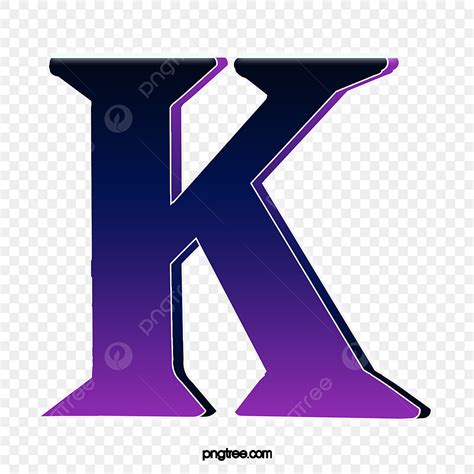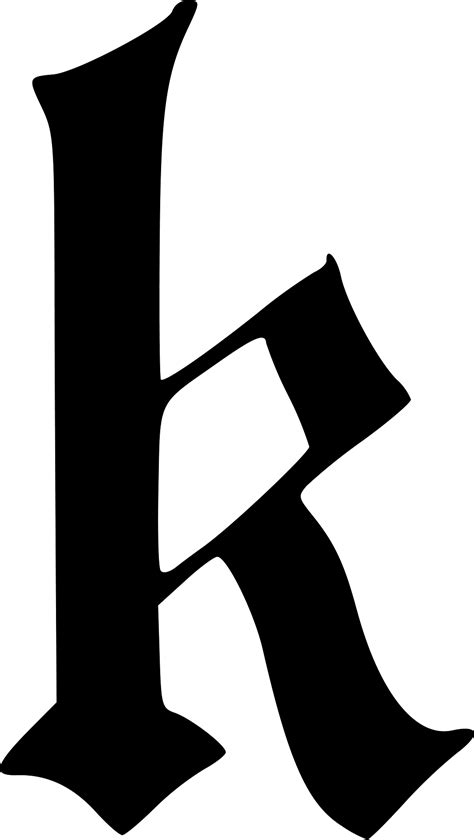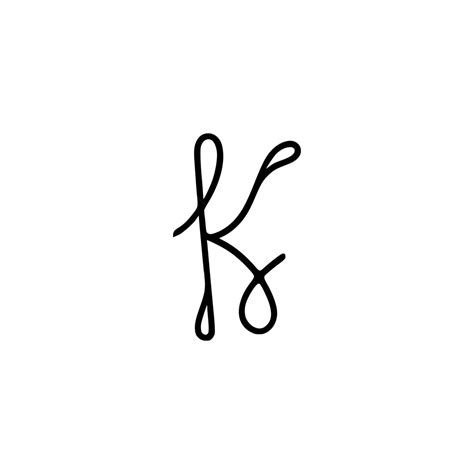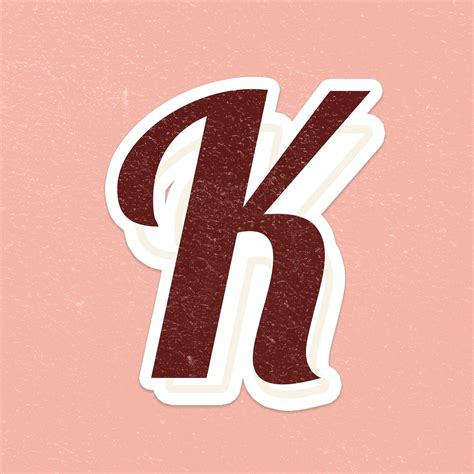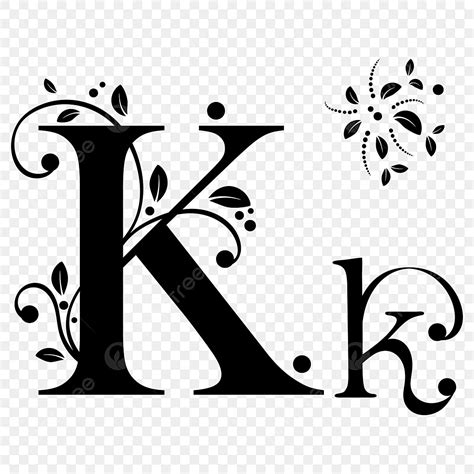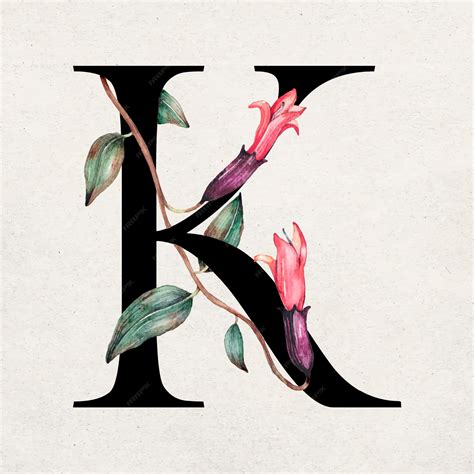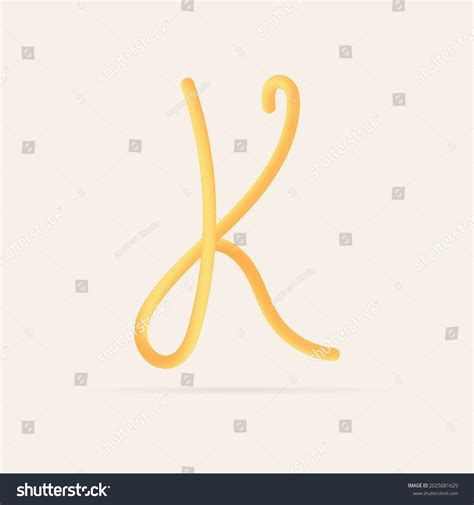
Letter K Fonts
Typography is an art form that can transform the look and feel of any design project. One of the most intriguing aspects of typography is the use of unique and stylish fonts that can add a touch of elegance and personality to your work. Among the myriad of fonts available, Letter K Fonts stand out for their distinctive design and versatility. These fonts are not just about the letter 'K'; they encompass a wide range of styles that can be used in various contexts, from logos and branding to web design and print media.
Understanding Letter K Fonts
Letter K Fonts are a category of typography that focuses on the design and styling of the letter 'K'. This letter is often used as a focal point in logos and branding because of its unique shape and the variety of styles it can be presented in. The letter 'K' can be designed in numerous ways, from sleek and modern to bold and traditional, making it a versatile choice for designers.
Types of Letter K Fonts
There are several types of Letter K Fonts that cater to different design needs. Here are some of the most popular categories:
• Serif Letter K Fonts: These fonts feature small lines or strokes at the ends of the letterforms, giving them a classic and elegant look. They are often used in print media and formal documents.
• Sans-Serif Letter K Fonts: These fonts do not have the small lines or strokes at the ends of the letterforms, making them clean and modern. They are widely used in digital media and web design.
• Script Letter K Fonts: These fonts mimic handwriting or calligraphy, adding a personal and artistic touch to designs. They are often used in invitations, logos, and branding.
• Display Letter K Fonts: These fonts are designed for large sizes and are often used in headlines, posters, and advertisements. They can be highly stylized and decorative.
• Monospaced Letter K Fonts: These fonts have uniform width for each character, making them ideal for coding and technical documents. They ensure that text aligns neatly in columns.
Here are some popular Letter K Fonts that are widely used in various design projects:
Font Name Style Usage
Kabel Sans-Serif Web Design, Headlines
Koulen Serif Print Media, Formal Documents
Kreon Serif Print Media, Headlines
Karla Sans-Serif Web Design, User Interfaces
Kaushan Script Script Invitations, Logos
These fonts are just a few examples of the vast array of Letter K Fonts available. Each font has its unique characteristics and can be used to achieve different design goals.
Using Letter K Fonts in Design
Letter K Fonts can be used in a variety of design projects to create a unique and memorable look. Here are some tips on how to effectively use these fonts in your designs:
• Logos and Branding: The letter 'K' is often used as a focal point in logos and branding. Its unique shape and versatility make it a popular choice for creating distinctive and recognizable logos.
• Web Design: Sans-serif and display Letter K Fonts are commonly used in web design for headlines and navigation menus. They provide a clean and modern look that enhances the overall user experience.
• Print Media: Serif and script Letter K Fonts are often used in print media for headlines, body text, and decorative elements. They add a touch of elegance and sophistication to printed materials.
• Advertisements: Display Letter K Fonts are ideal for advertisements and posters. Their highly stylized and decorative nature makes them stand out and grab attention.
When using Letter K Fonts in your designs, it's important to consider the overall aesthetic and the message you want to convey. Choose a font that complements the design and enhances the visual appeal.
💡 Note: Always ensure that the font you choose is legible and appropriate for the medium in which it will be used. For example, script fonts may be beautiful but can be difficult to read in small sizes or on digital screens.
Designing with Letter K Fonts
Designing with Letter K Fonts involves more than just selecting a font; it requires a thoughtful approach to typography and layout. Here are some steps to help you design effectively with these fonts:
• Choose the Right Font: Select a font that aligns with the overall design aesthetic and the message you want to convey. Consider the style, size, and weight of the font.
• Pair Fonts Wisely: If you're using multiple fonts, ensure they complement each other. Pairing a serif font with a sans-serif font can create a balanced and harmonious design.
• Use Contrast: Vary the size, weight, and style of the fonts to create contrast and hierarchy. This helps guide the viewer's eye and emphasizes important elements.
• Consider Readability: Ensure that the font is legible and easy to read. Avoid using overly decorative fonts for body text, as they can be difficult to read.
• Test on Different Devices: If you're designing for digital media, test the font on different devices and screen sizes to ensure it looks good and is readable across all platforms.